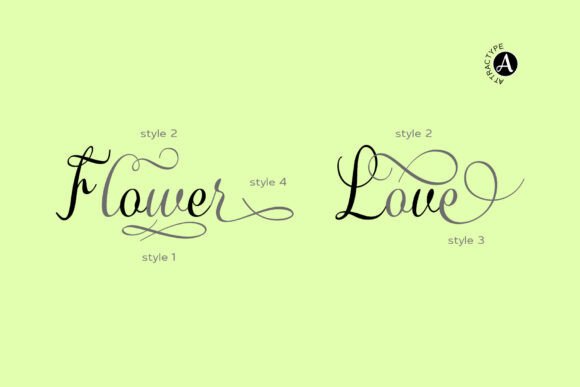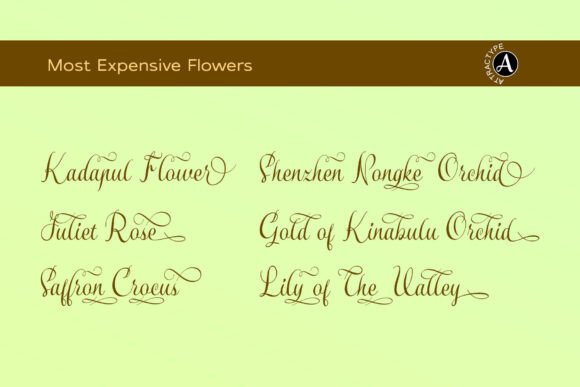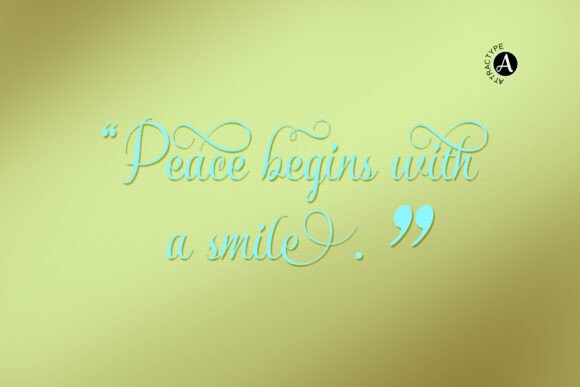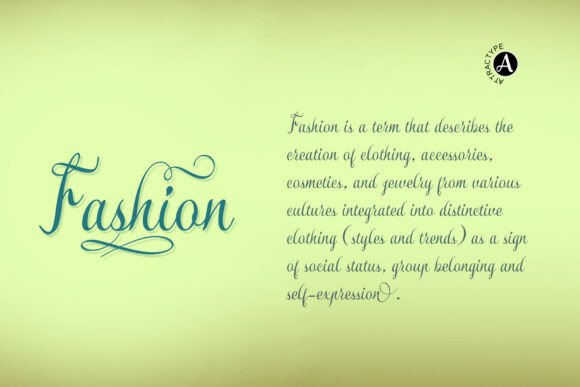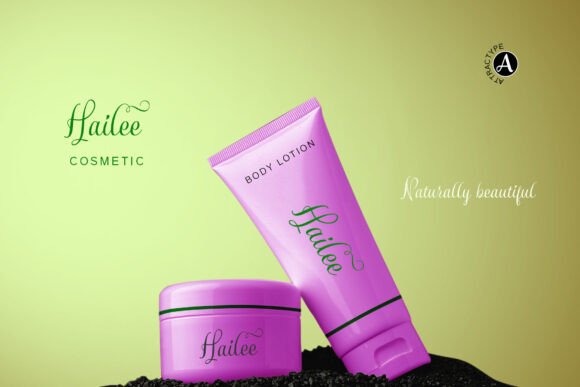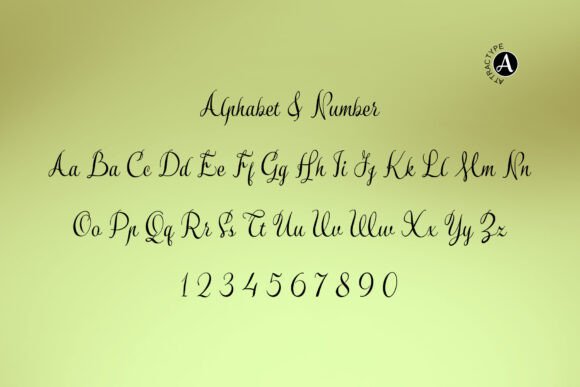
Introduction to Smiling Moon Font
As designers, we’ve all been there – staring at a blank canvas, waiting for inspiration to strike. It’s the moment when the perfect font can make all the difference, elevating our creations from ordinary to extraordinary. And that’s exactly what the Smiling Moon Font does – it adds a touch of elegance and sophistication to any project.
With its sleek and modern script style, Smiling Moon Font is a versatile design resource that’s perfect for a wide range of creative projects, from professional branding and logotypes to invitations and more. Its high-quality design makes it a valuable asset for designers looking to take their work to the next level.
Key Features of Smiling Moon Font
- Unique, hand-drawn style with a transparent background for easy customization
- Smiling Moon Font is designed to work well in a variety of sizes, from 12px to 200px, making it perfect for headings and body text
- Unique characteristics include a playful, whimsical feel and a range of expressive emotions, making it ideal for creative projects that require a touch of personality
Honest Review: Smiling Moon Font
As a designer, I’m always on the lookout for high-quality fonts that can elevate my creative projects. The Smiling Moon Font is one such resource that caught my attention. I downloaded it for free and was pleasantly surprised by its unique aesthetic.
- ✨ The font has a playful, whimsical feel that’s perfect for children’s books, greeting cards, or any project that needs a touch of whimsy.
- ✨ The Smiling Moon Font comes with a transparent background, making it easy to layer with other design elements.
- ✨ The font is highly customizable, allowing you to adjust the size, color, and spacing to suit your design needs.
- ⚠️ The font may not be suitable for formal or professional projects, as it’s a bit too playful for those types of designs.
- ⚠️ The font is not as versatile as some other fonts, which may limit its use in certain creative projects.
Overall, the Smiling Moon Font is a great design resource for designers looking to add a touch of whimsy to their projects. While it may have some limitations, its unique aesthetic and high quality make it a worthwhile addition to any design library.
Smiling Moon Font
The Smiling Moon Font is a unique and versatile design resource that can elevate your creative project to the next level. This high-quality font is available for free download and features a transparent background, making it perfect for various design applications.
The Smiling Moon Font is perfect for various design applications, including: social media graphics, marketing materials, logos, branding materials, presentations, reports, and documents.
Getting the Most Out of Smiling Moon Font
To get the most out of the Smiling Moon Font, experiment with different font sizes, colors, and styles. Combine it with other design elements to create unique and eye-catching designs. The Smiling Moon Font is a versatile design resource that can help you achieve your creative vision.